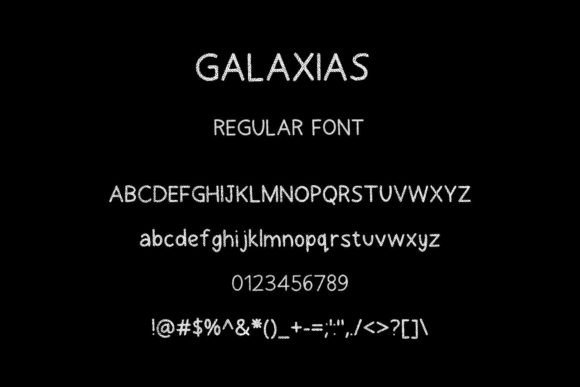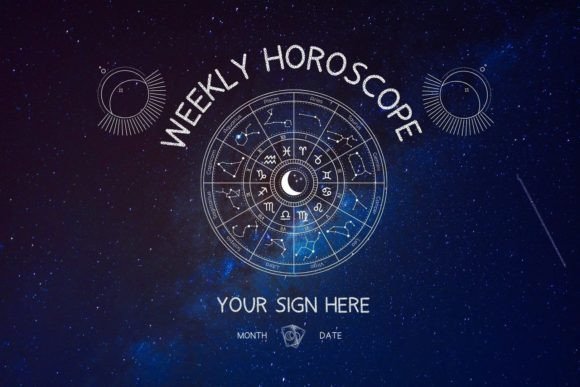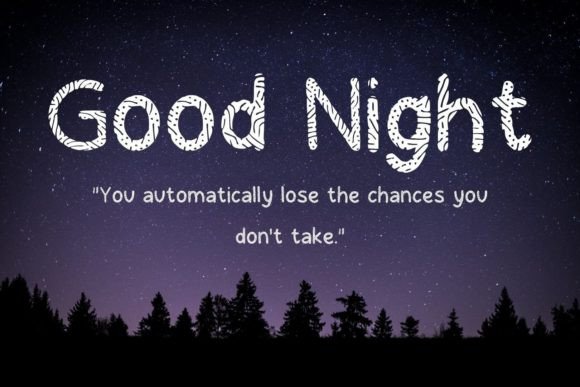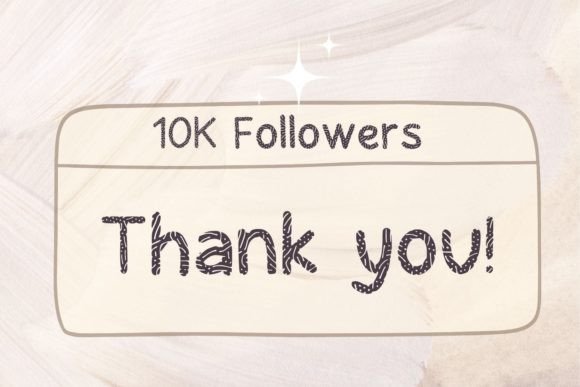
Introduction to Galaxias Font
Have you ever stared at the night sky, mesmerized by the twinkling stars and the vast expanse of the galaxy? For designers, that moment of cosmic wonder can be a spark of inspiration for a creative project. And what better way to capture that magic than with the Galaxias Font?
This fun, patterned handwritten font is out of this world – literally! Its dynamic, galactic look is perfect for adding a touch of whimsy to your designs. Whether you’re working on a web project, creating a brand identity, or crafting a beautiful headline, the Galaxias Font is a versatile design resource that’s sure to shine. With its transparent background and high-quality design, it’s the perfect addition to any creative endeavor.
Key Features of Galaxias Font
- Galaxias Font features a transparent background, allowing for flexibility in design
- Designed to offer high-resolution output, suitable for both digital and print media
- Galaxias Font is a versatile, modern design resource with a unique aesthetic
- Perfect for use in various creative contexts, from logos to typography and more
Honest Review: Galaxias Font
I recently came across the Galaxias Font and was excited to give it a try. As a designer, I’m always on the lookout for high-quality design resources that can elevate my creative projects. The Galaxias Font did not disappoint.
What works well is the font’s unique, cosmic-inspired design. The Galaxias Font features a transparent background, making it perfect for overlaying on top of images or other design elements. The font’s high quality is evident in its crisp, clean lines and well-defined characters.
Here are some of the key features of the Galaxias Font:
- Unique, cosmic-inspired design
- Transparent background for easy overlaying
- High-quality, crisp lines and well-defined characters
One potential limitation is that the font may not be suitable for all types of projects. Its cosmic theme may be more appealing to those working on science fiction or space-related designs.
Overall, I was impressed with the Galaxias Font. Its unique design and high quality make it a valuable addition to any designer’s toolkit. If you’re looking for a creative and effective font for your next project, I’d definitely recommend checking out the Galaxias Font.
To get the most out of the Galaxias Font, use it with a transparent background to create a unique and eye-catching design. Experiment with different font sizes and styles to add depth and interest to your project.
The Galaxias Font is perfect for a variety of creative projects, including logo designs, business cards, and marketing materials. Its high-quality design makes it an excellent choice for any project that requires a professional and modern look.